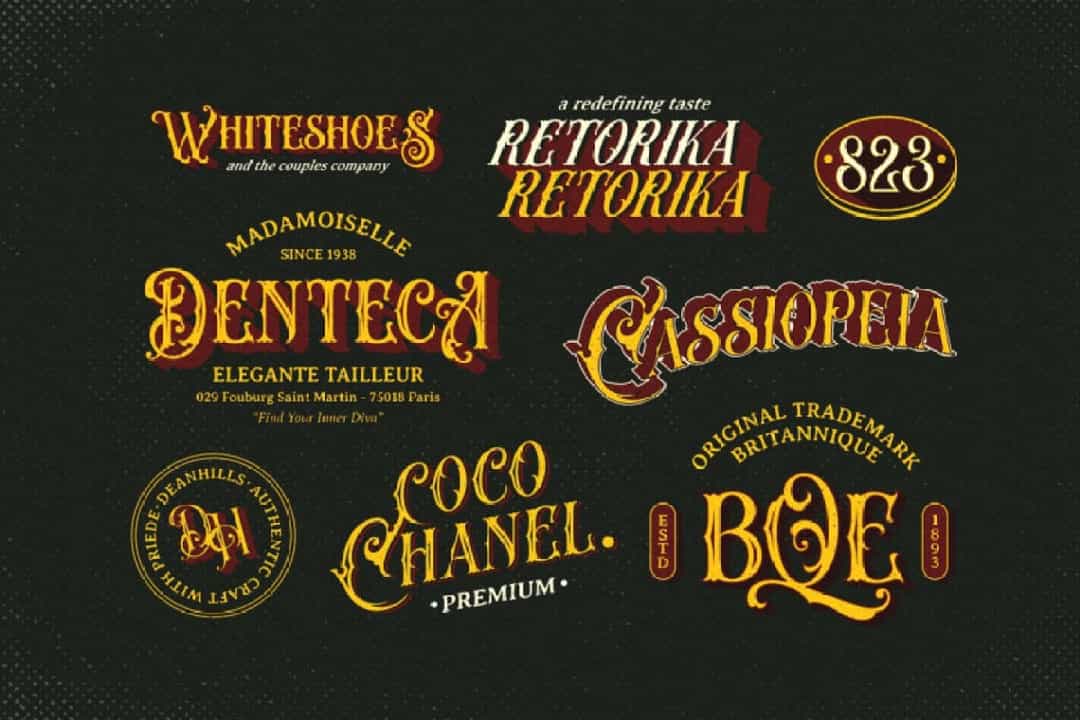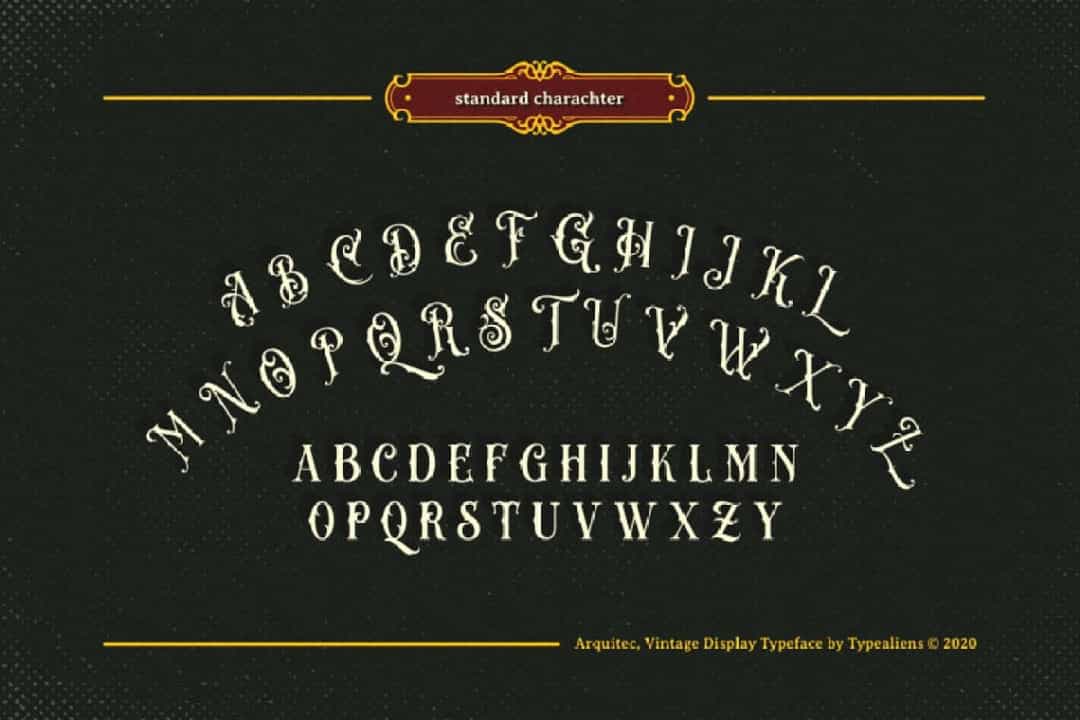
Arquitec is a serif typeface with antique and decorative designs typeface designed to be inspired by tattoos chicano culture, street art. It is a great font for normal text sizes, but it’s even better when used for large display, short phrases, or just to add a few one character in the design.